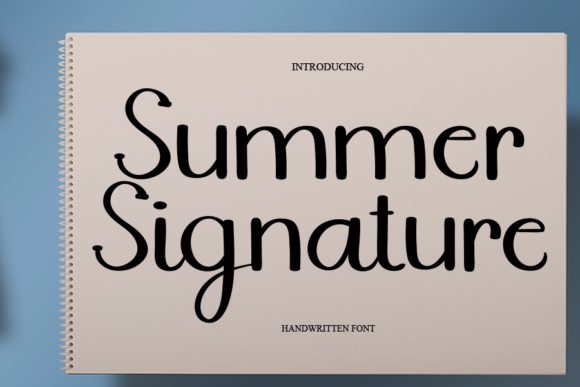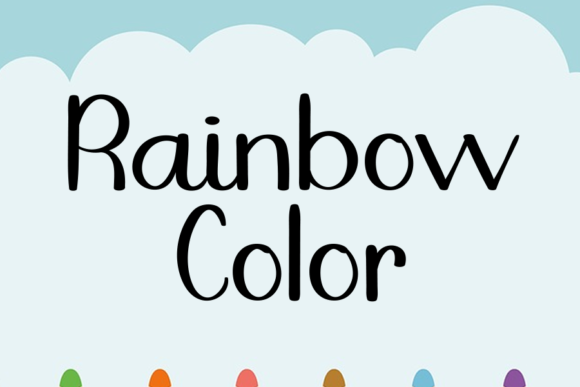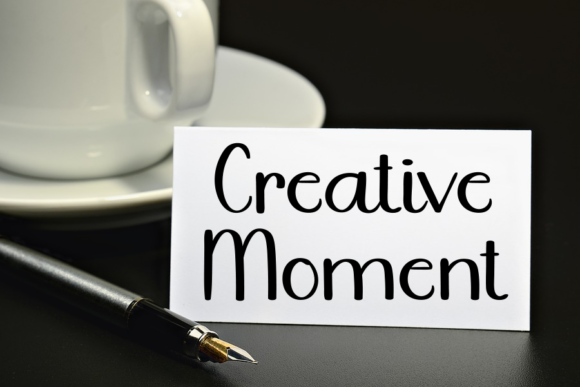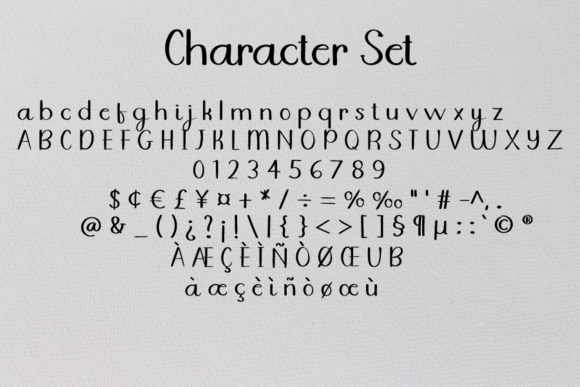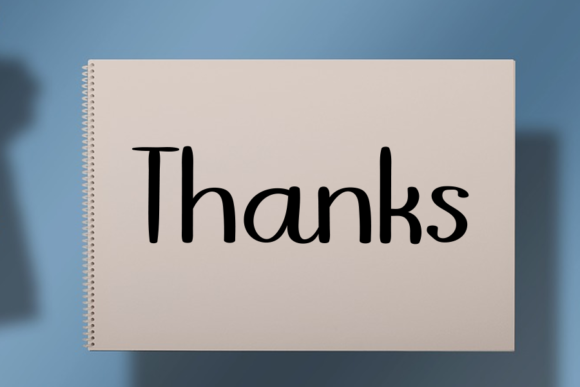
Summer Signature Font
About Summer Signature Font
Summer Signature is a cute and trendy handwritten font. Its natural and unique style makes it incredibly fitting to a large pool of designs. The only limit is your imagination!